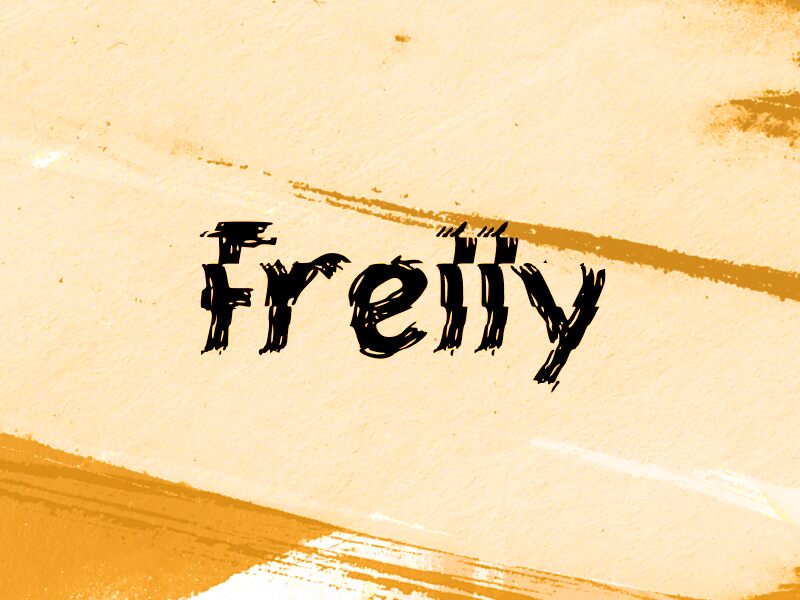
Frelly
Frelly - a bold, distorted font that commands attention. Its irregularly shaped letterforms evoke a sense of chaos and energy, making it a standout choice for display purposes.
The jagged edges and uneven line weights add a raw, edgy aesthetic that immediately draws the eye. Whether used for eye-catching headlines, dynamic branding, or impactful posters, Frelly's unconventional style lends itself to designs that aim to make a striking visual impact. Its versatility extends beyond traditional applications, as it could also breathe life into experimental typography, album covers, or even retro-inspired digital art.
Frelly is a font that defies convention, inviting designers to embrace the beauty in its unrestrained, distorted form.
The jagged edges and uneven line weights add a raw, edgy aesthetic that immediately draws the eye. Whether used for eye-catching headlines, dynamic branding, or impactful posters, Frelly's unconventional style lends itself to designs that aim to make a striking visual impact. Its versatility extends beyond traditional applications, as it could also breathe life into experimental typography, album covers, or even retro-inspired digital art.
Frelly is a font that defies convention, inviting designers to embrace the beauty in its unrestrained, distorted form.